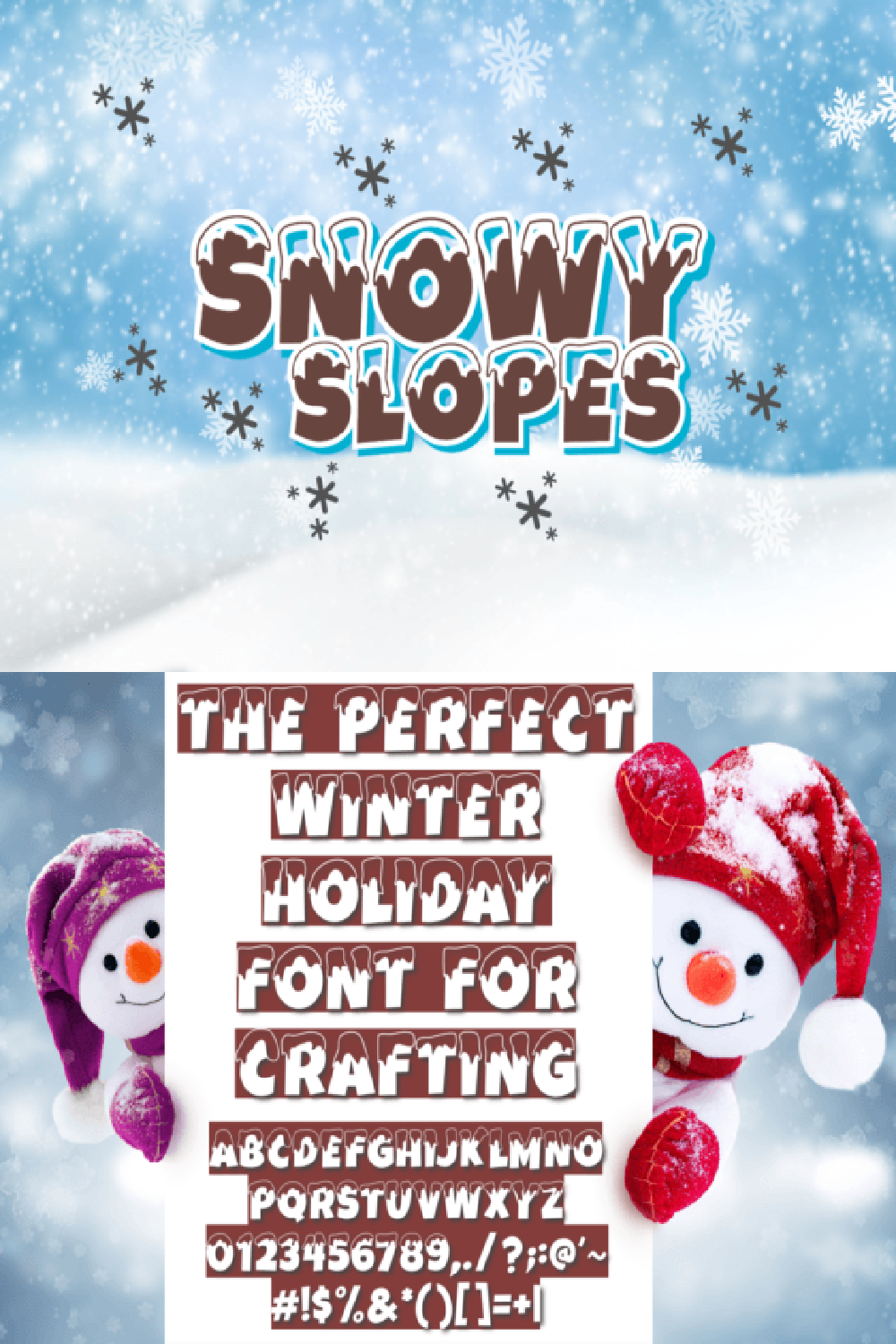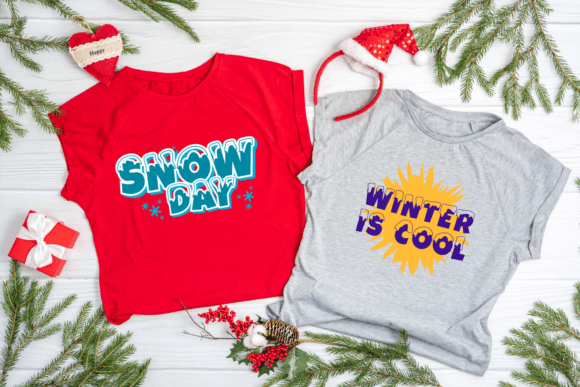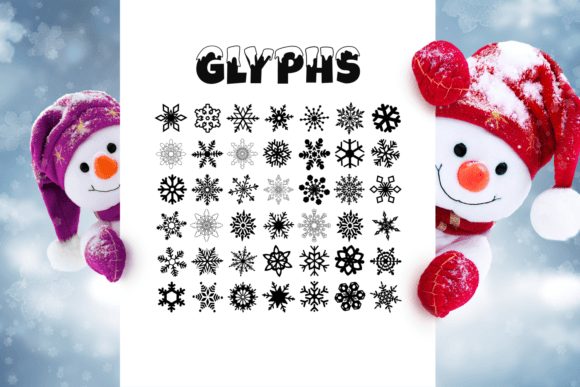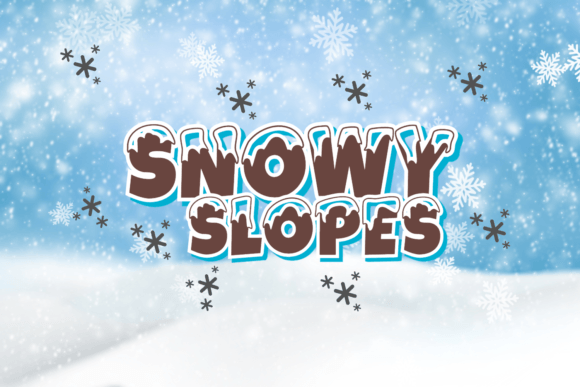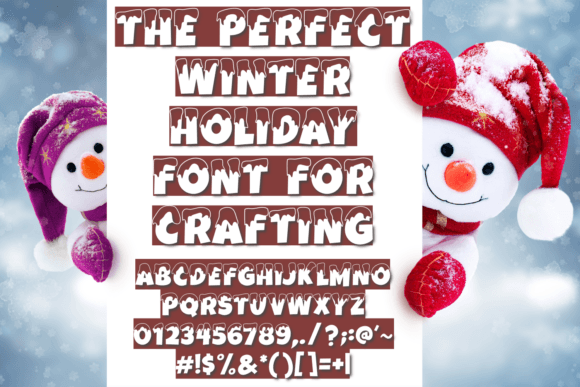
Snowy Slopes Font: A Festive Display Font for Cricut & Holiday Crafts
About the Snowy Slopes Font
Crafted with precision, the Snowy Slopes Font is ready to bring your ideas to life. Snowy Slopes – your ultimate choice for winter-themed creations and celebrations. Specially designed to breathe life into your Christmas greetings, festive invitations, social media blurbs, and DIY adornments, this enchanting font carries the magic of fresh snowfall.
Enhanced with a unique snow effect, it’s guaranteed to inject a joyful flair into your designs, making them stand out with a touch of festive cheer.
Snowy Slopes isn’t just a typeface; it’s a slice of winter wonderland, adding a subtle yet striking frosty aesthetic to your creative endeavors. From the crafts table to the digital screen, let Snow Font set the tone for your wintry narratives.